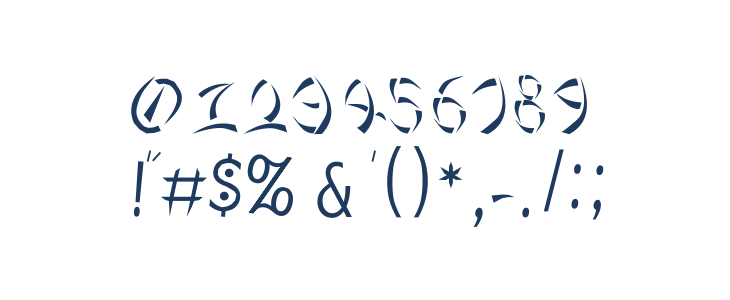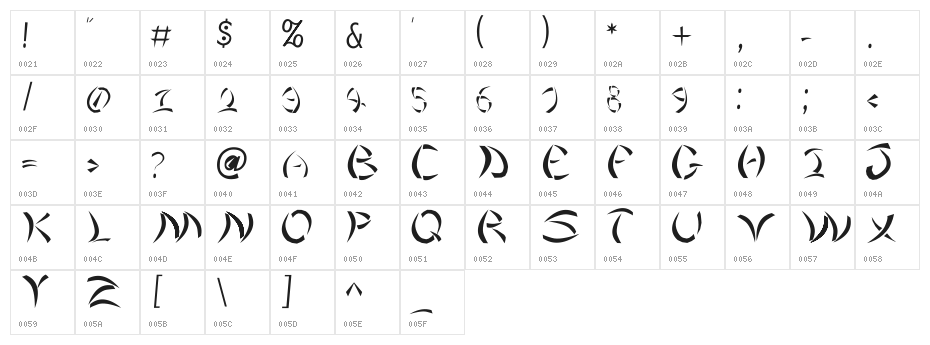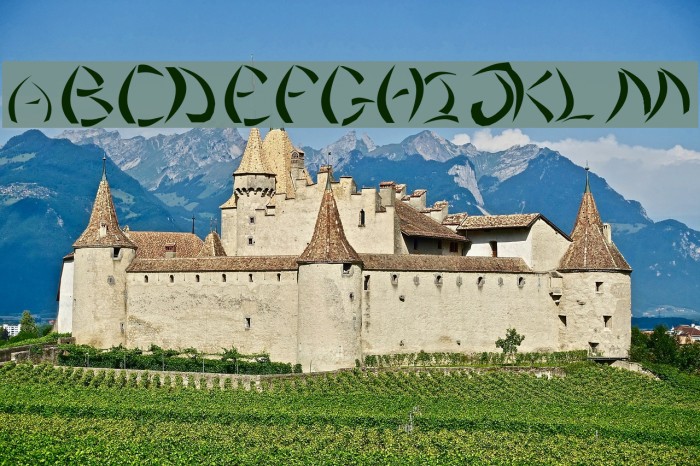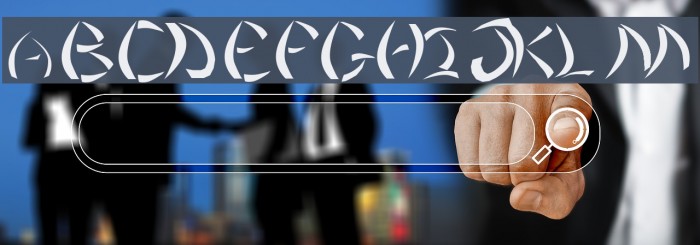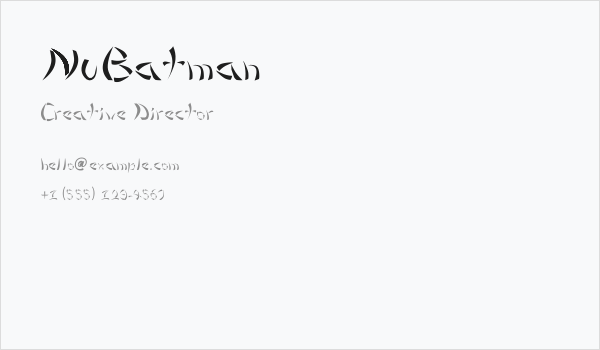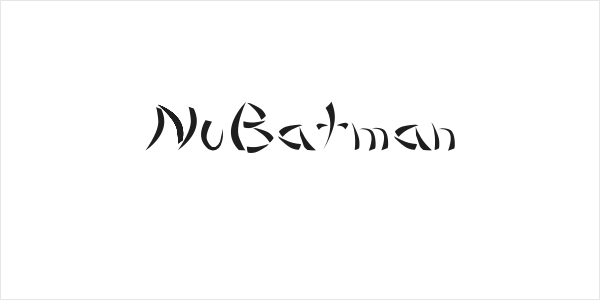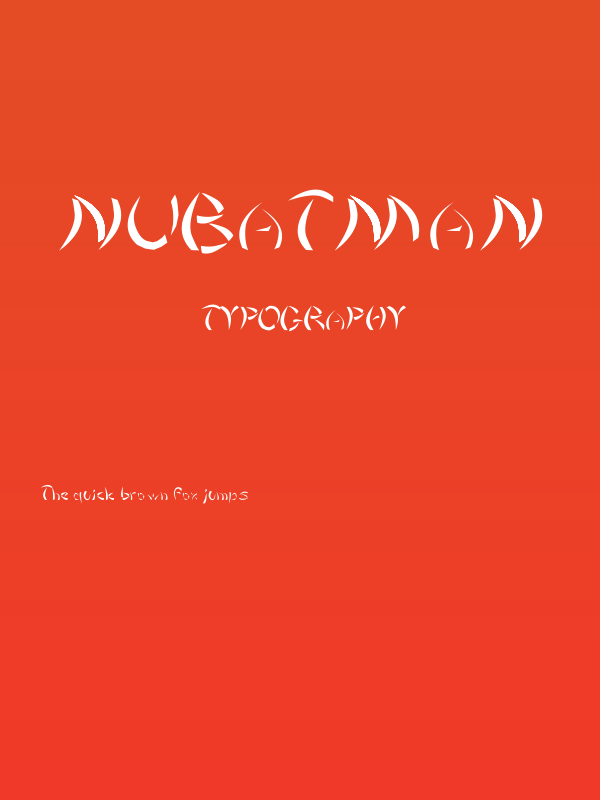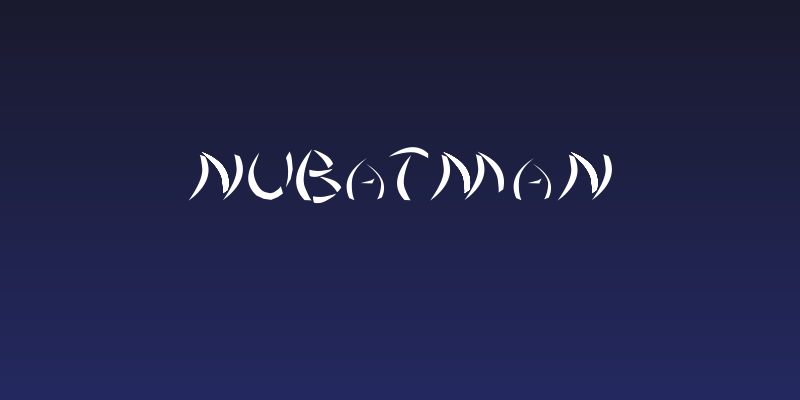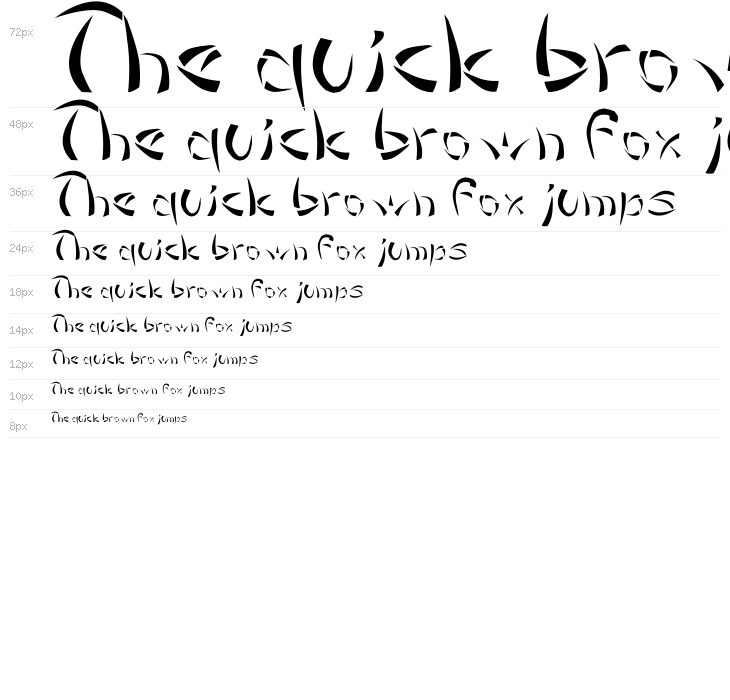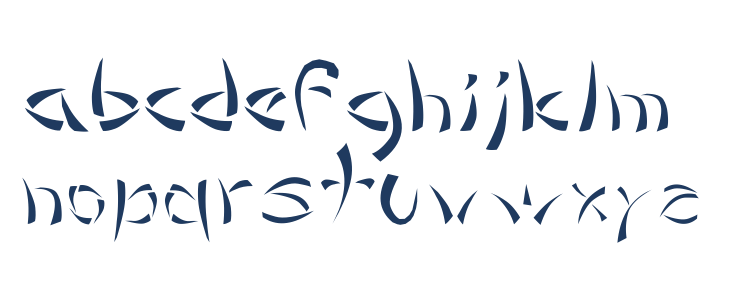
NuBatman Font
NuBatman Description
This font features a unique and bold design with sharp, angular edges and a dynamic flow. The characters are crafted with a sense of movement, resembling brush strokes or calligraphic styles, yet maintaining a modern and edgy appearance. The uppercase and lowercase letters share a consistent style, with the uppercase being slightly more pronounced. Numbers and special characters are designed to match the overall aesthetic, providing a cohesive look. The font's distinct style makes it stand out, ideal for projects that require a strong visual impact.